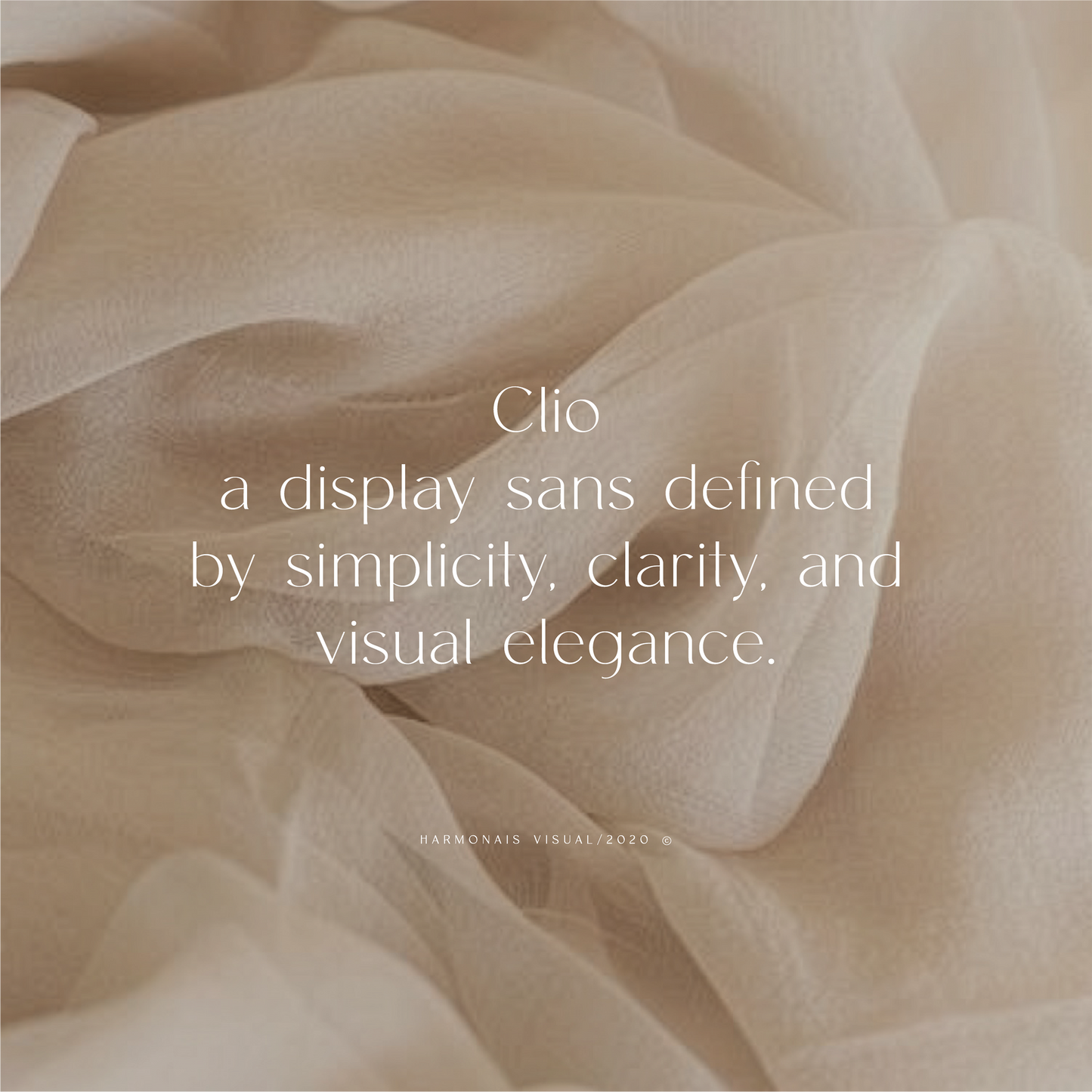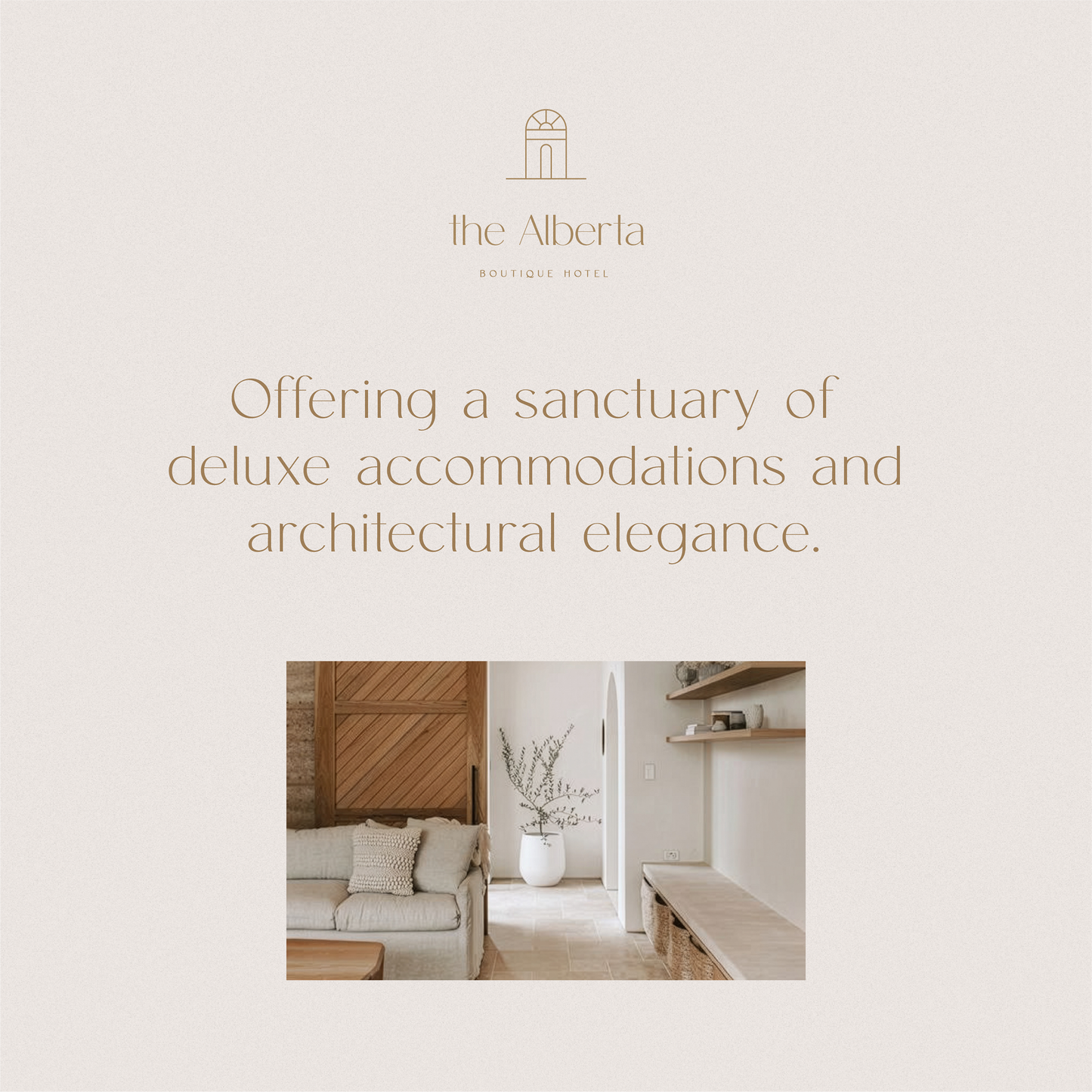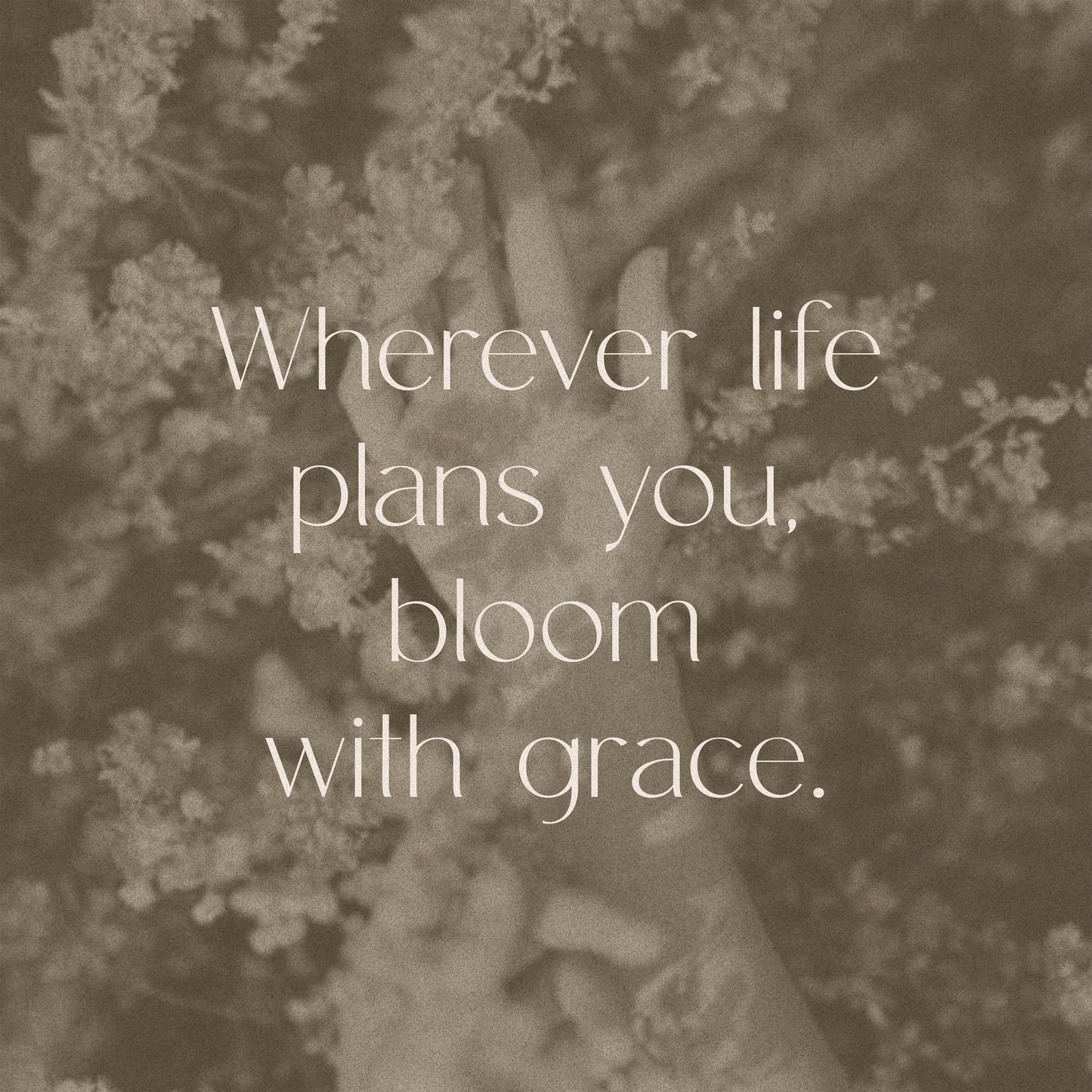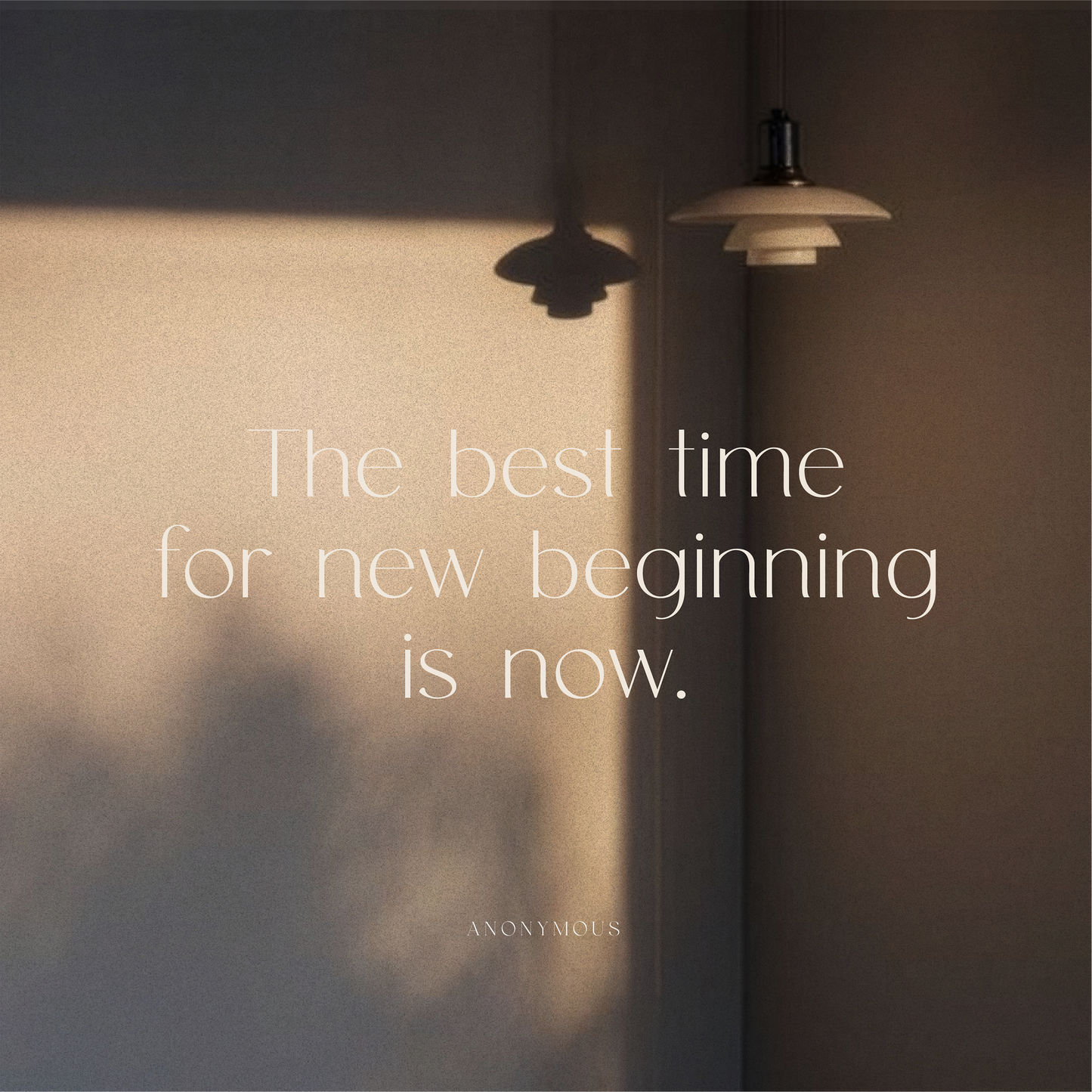
HV Clio
Harmonais Visual
Clio is sans-serif with simple, clean, and visual elegance. Specially designed for elegant-themed projects, perfectly suitable for creating simple, clean lifestyle designs such as logos, titles, magazines, and more.
— TOTAL GLYPHS: 485
— LIGATURES
— SUPPORT EUROPEAN LANGUAGES
— VIETNAMESE LANGUAGES SUPPORT